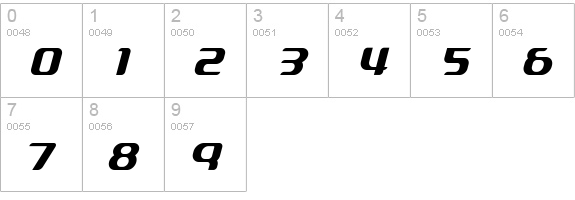
ACRYLIC2081-ALP31 Font Details
ACRYLIC2081-ALP31 is a modern and stylish font that exudes creativity and sophistication. With its sleek lines and bold design, this font is perfect for making a statement in any project. Whether you're designing a logo, creating branding materials, or working on a poster, ACRYLIC2081-ALP31 will definitely catch the eye of your audience. The best part about ACRYLIC2081-ALP31 is that it is completely free to download at FontsMarket.com. This means you can access this stunning font without any cost, allowing you to elevate your design projects without breaking the bank. Don't miss out on this fantastic opportunity to add a touch of elegance and flair to your work with ACRYLIC2081-ALP31. Download it now and let your creativity shine!